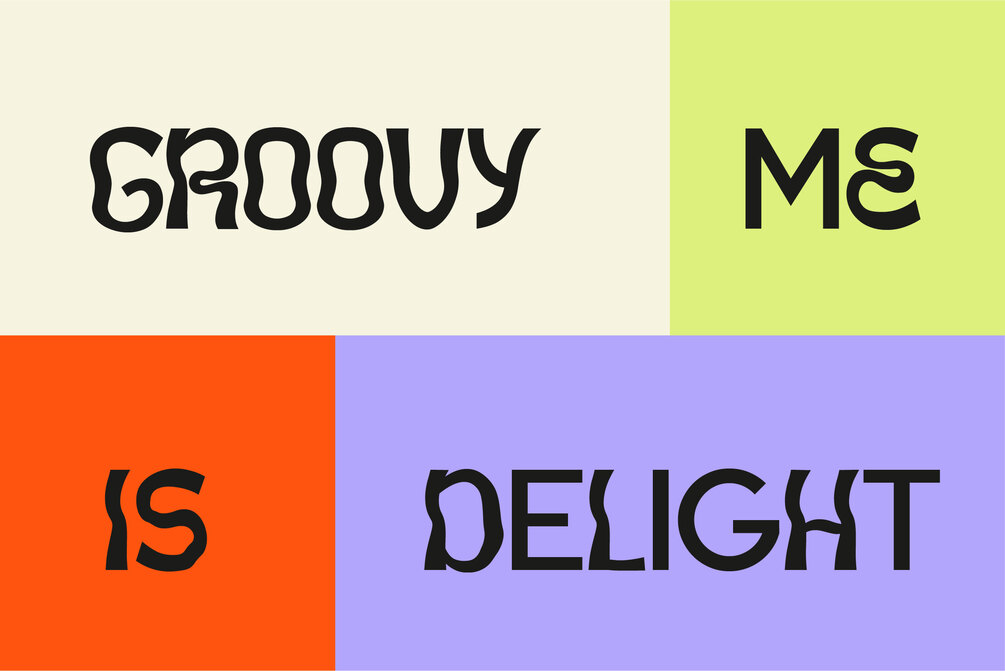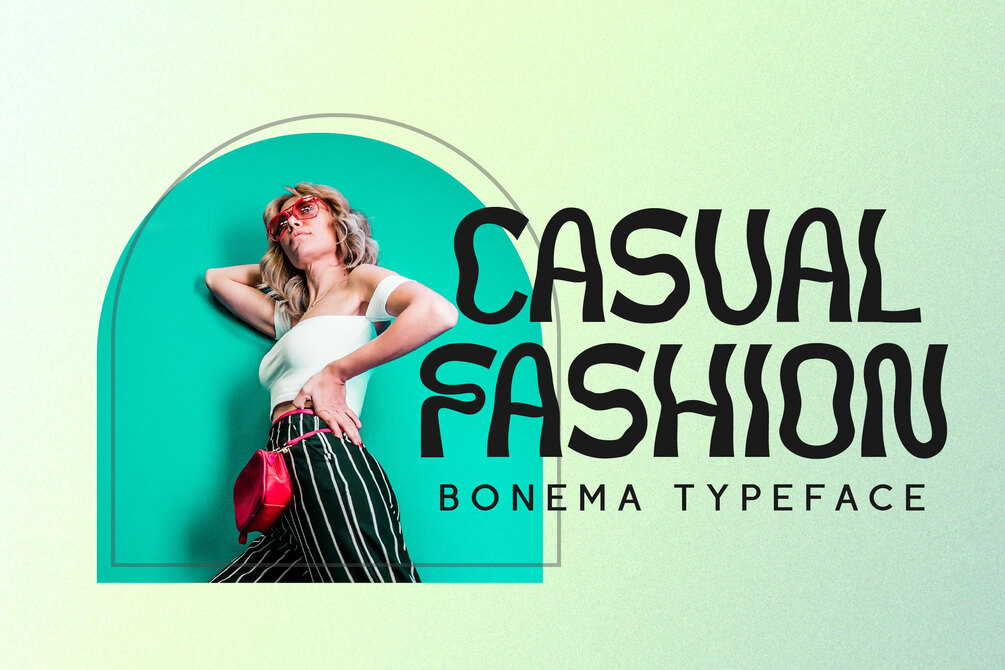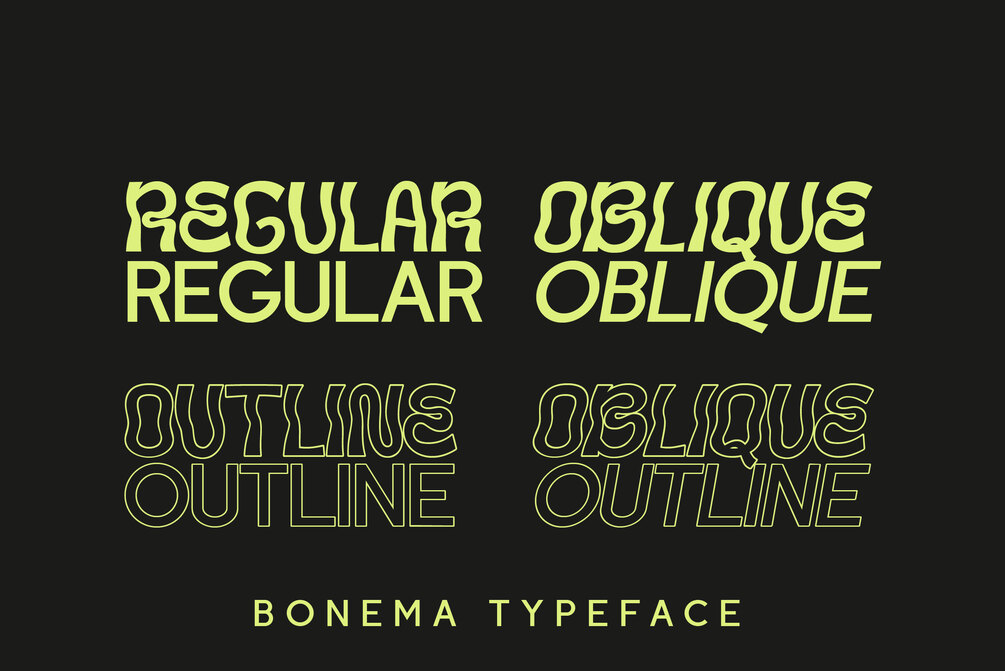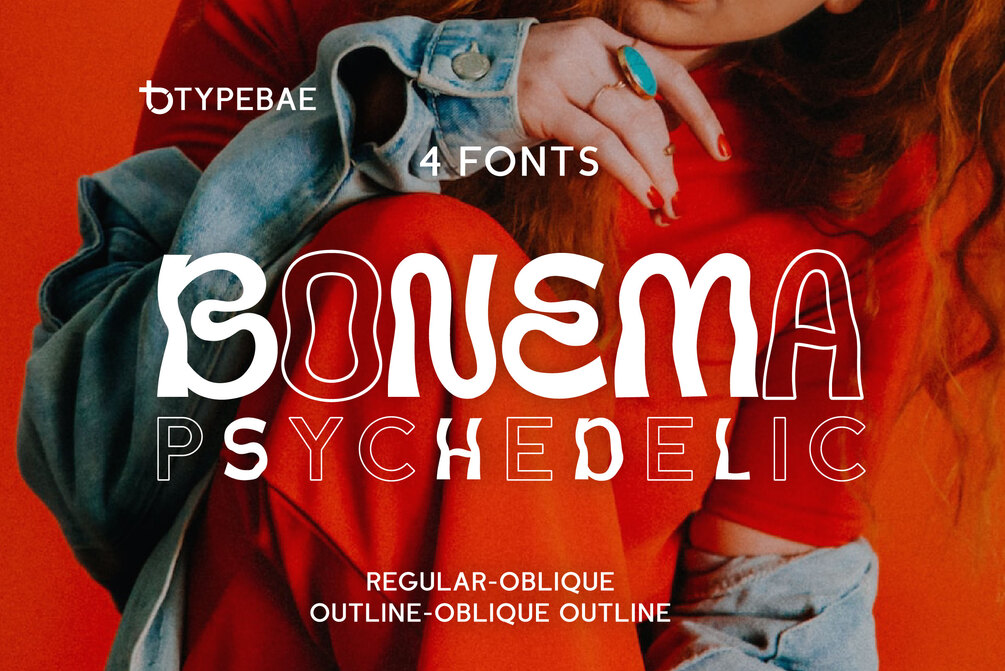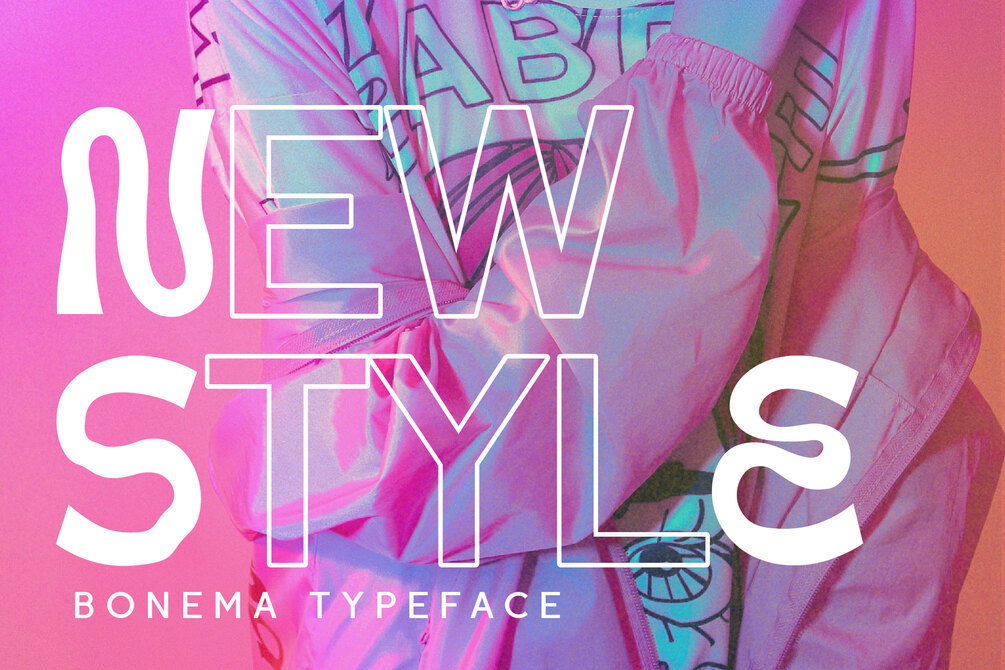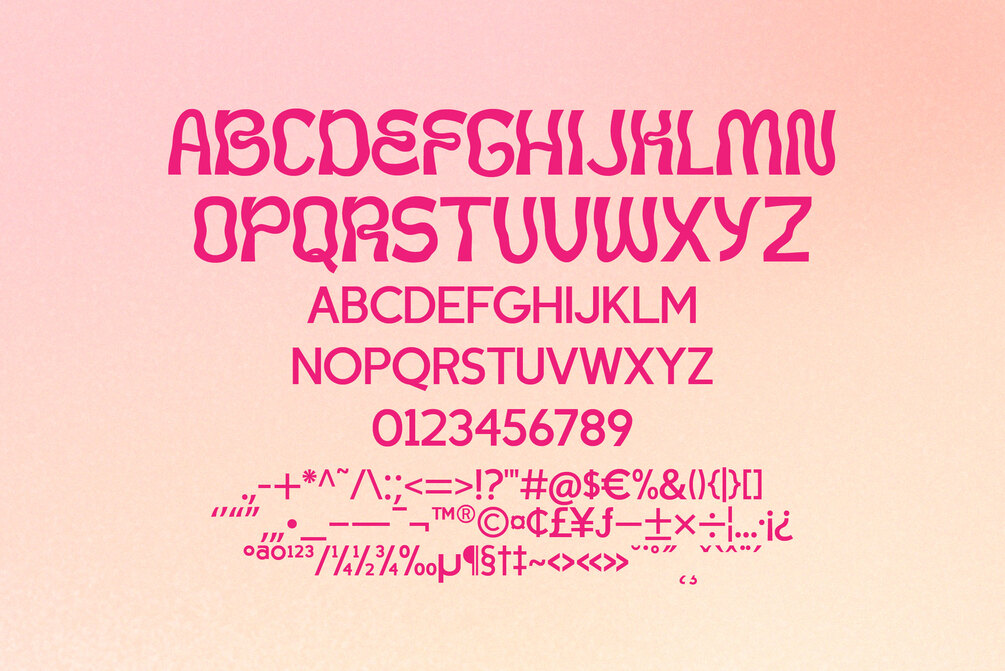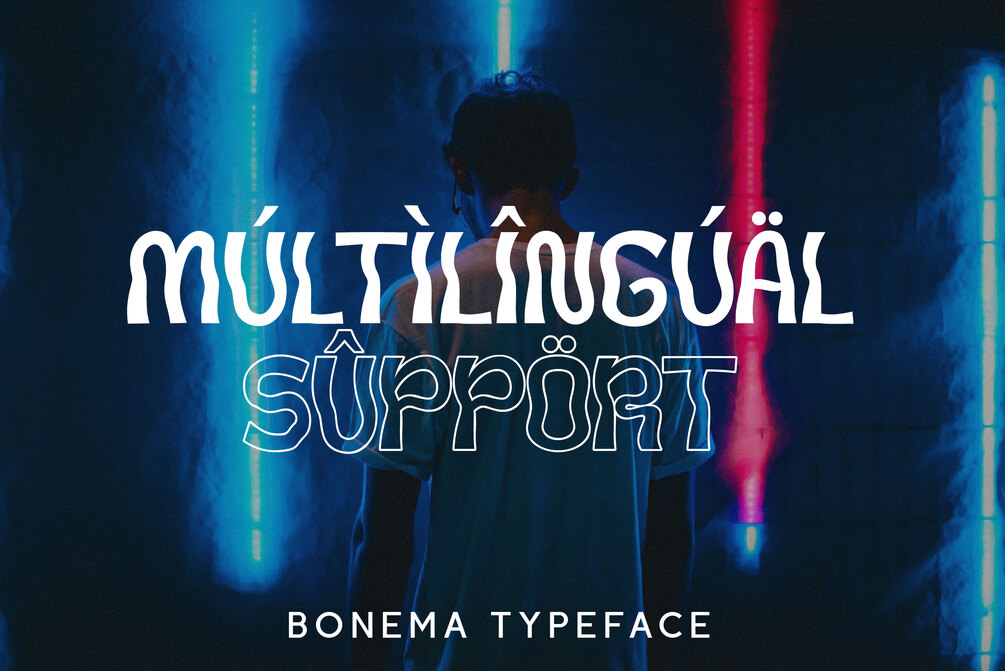
Bonema
Bonema is a retro-style font that encapsulates the spirit of the psychedelic era. The letters are decorated with elaborate, sparkling patterns that give off a surreal, free-spirited vibe.
The fascinating and intriguing personality of the typeface will undoubtedly transport viewers to another time and place.
• Full Set of standard alphabet and punctuation
• Multilingual Characters